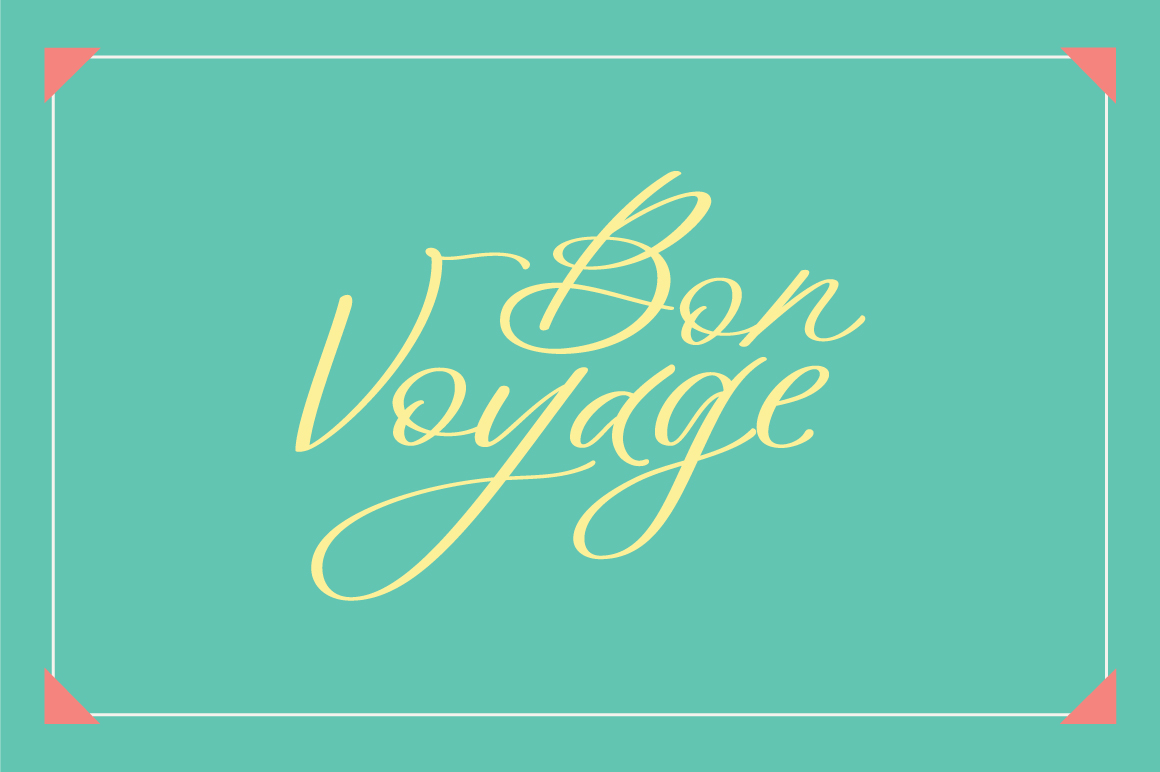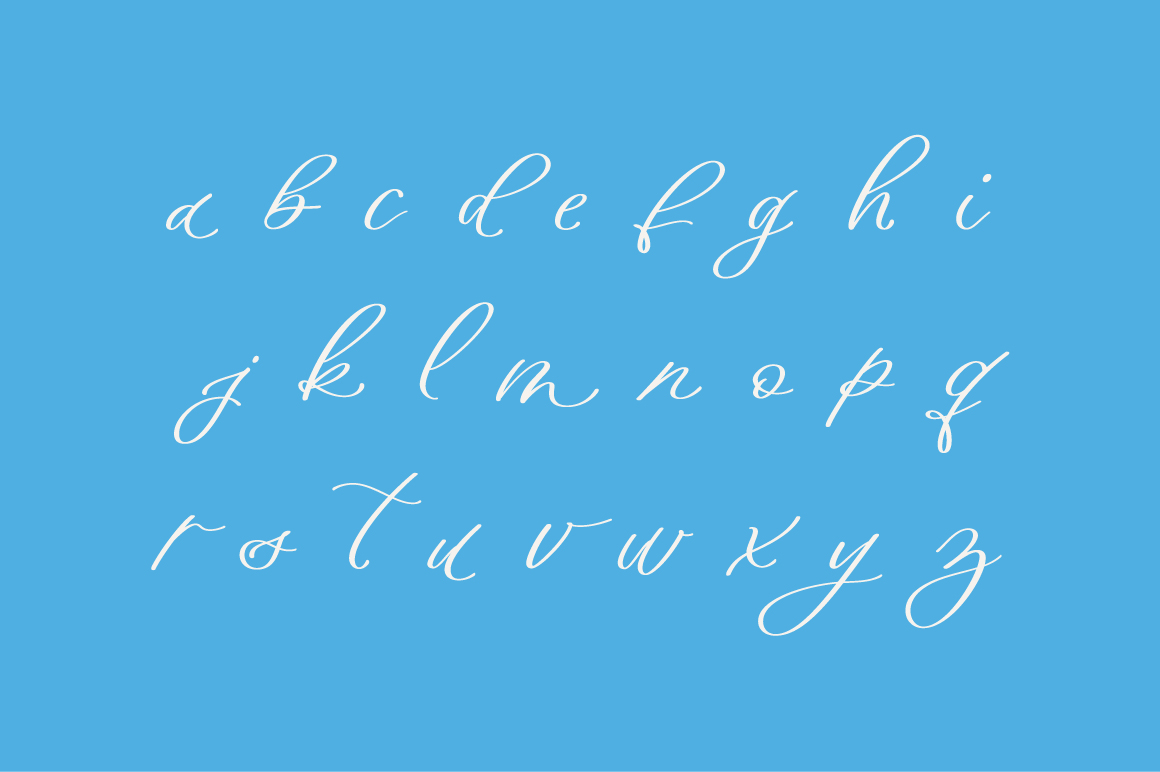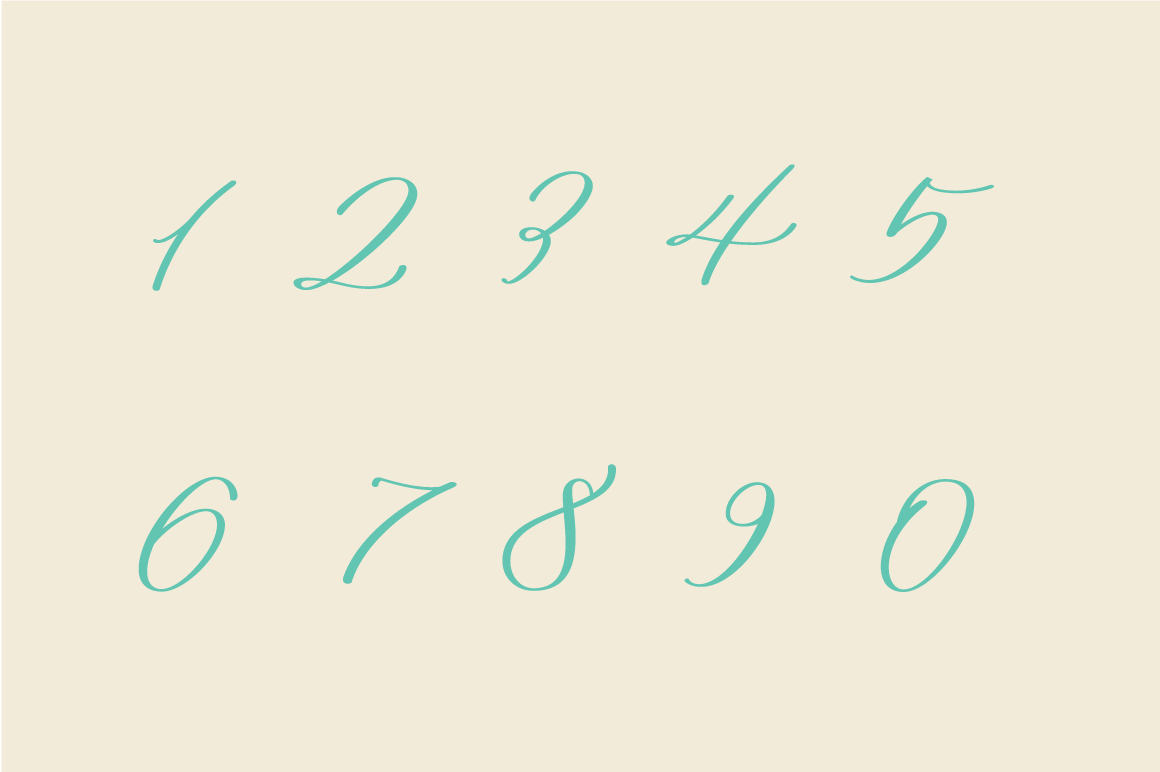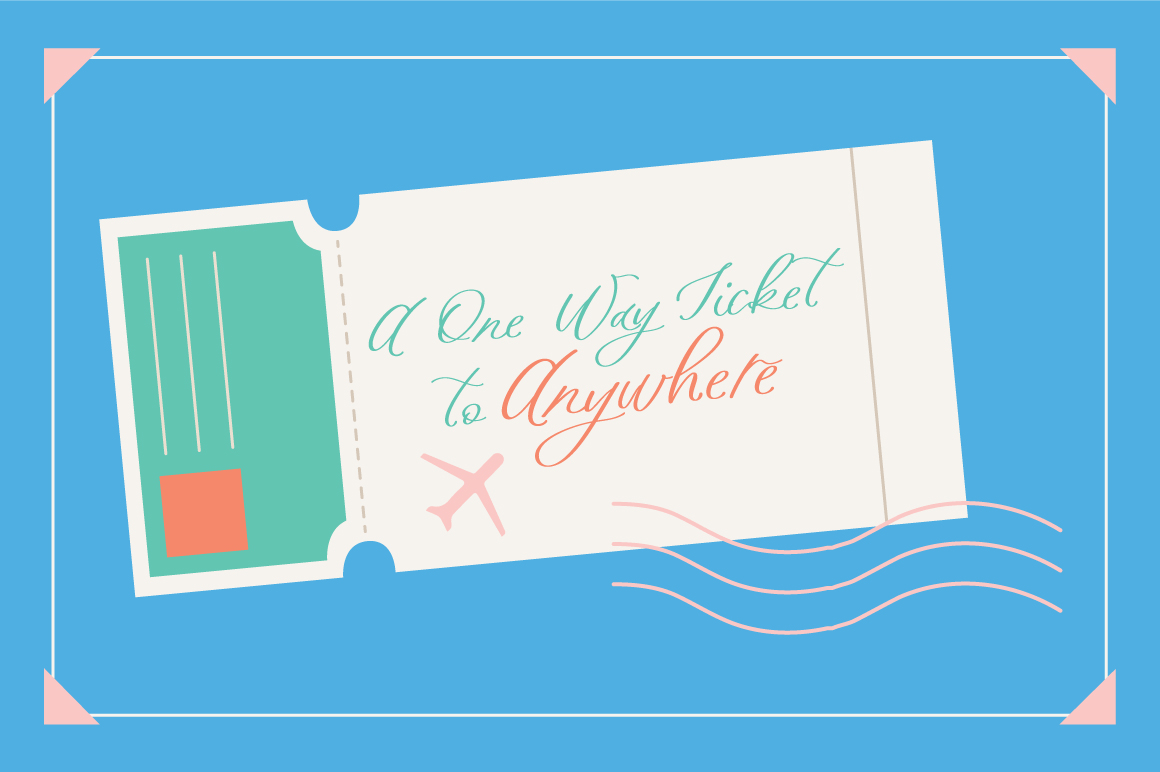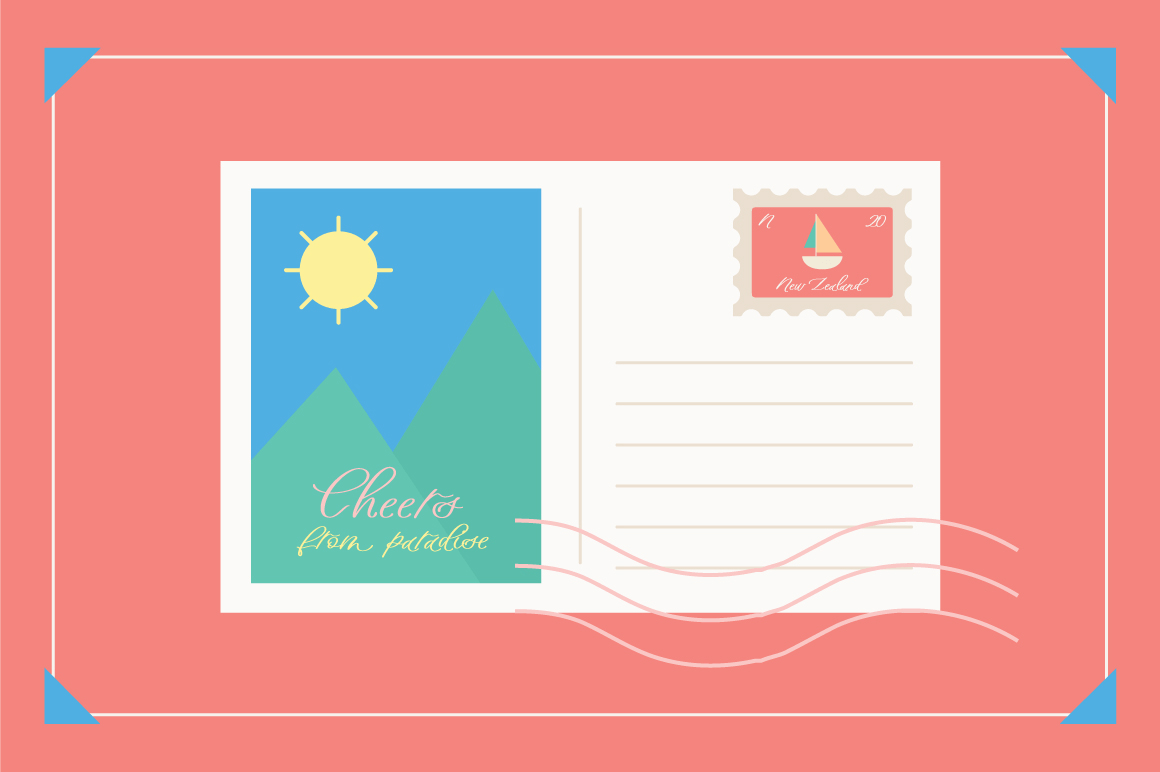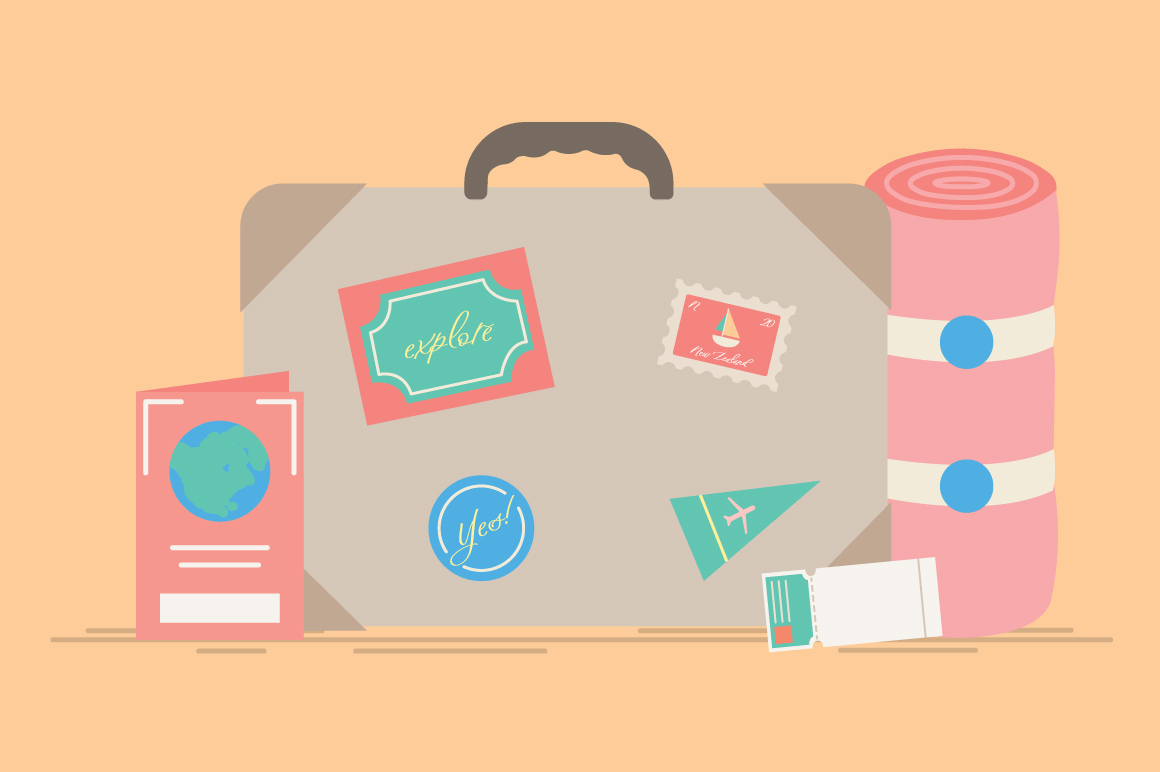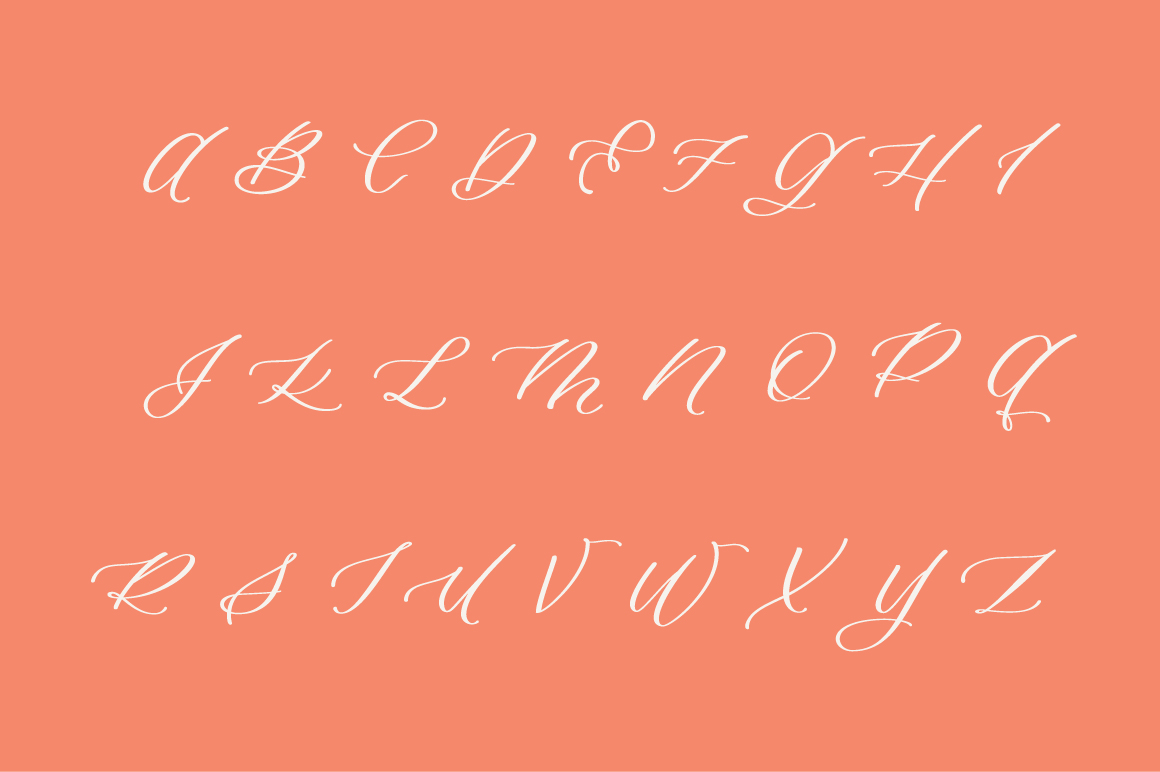
Bon Voyage
Font Family by Great Lakes Lettering
Based on the handwriting of Taryn Sutherland of Twinkle and Toast. Great Lakes Lettering is thrilled to release Bon Voyage. Add a flair of elegance and whimsy to your DIY designs.